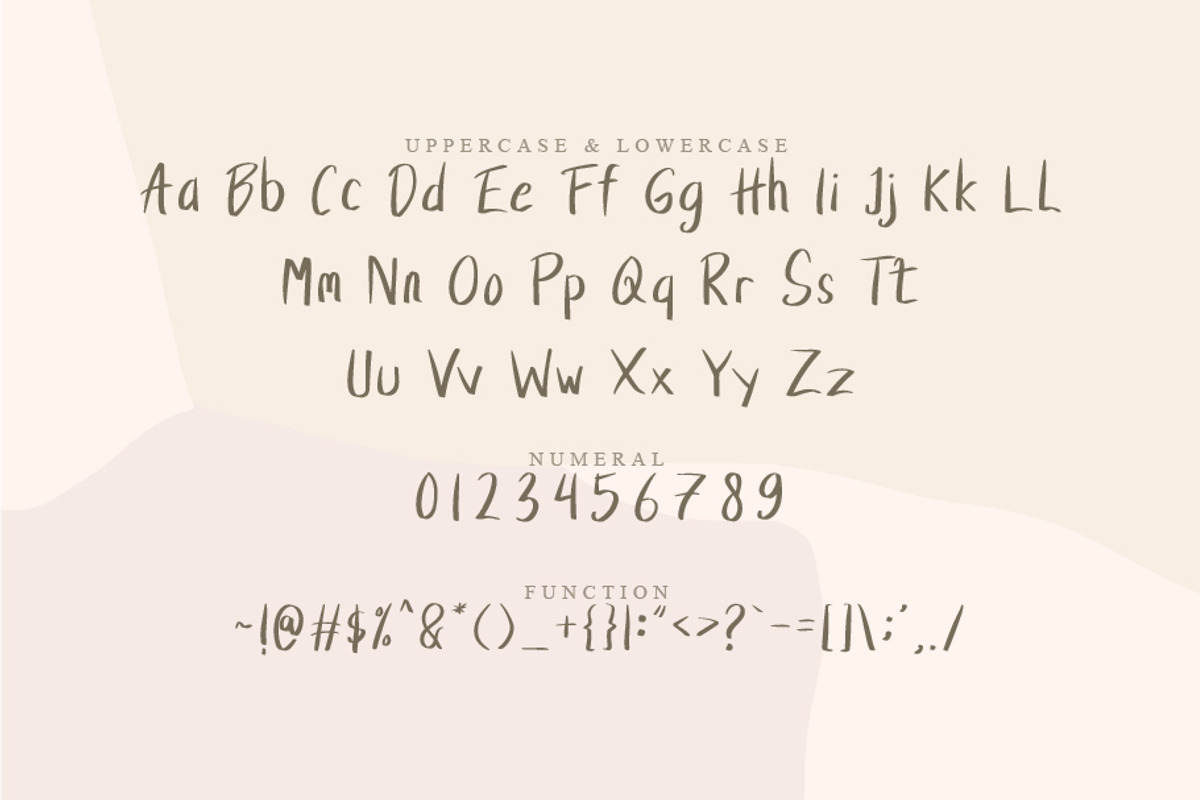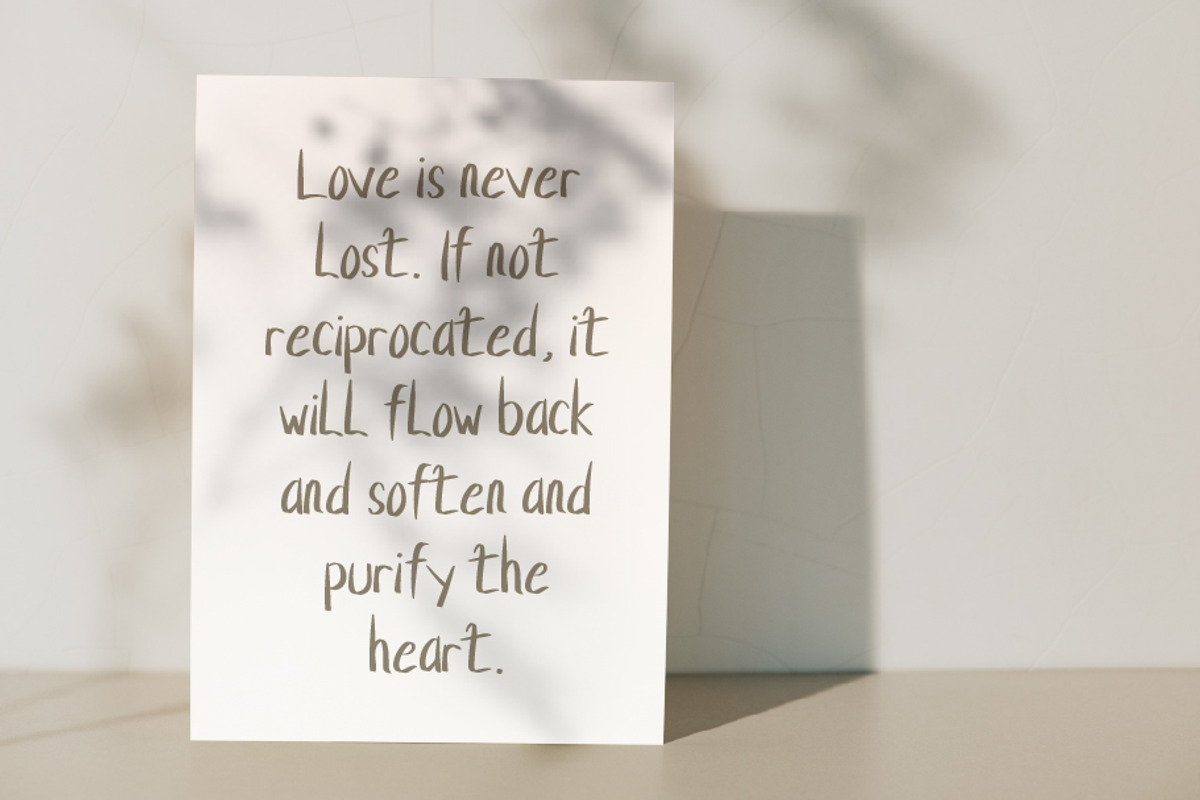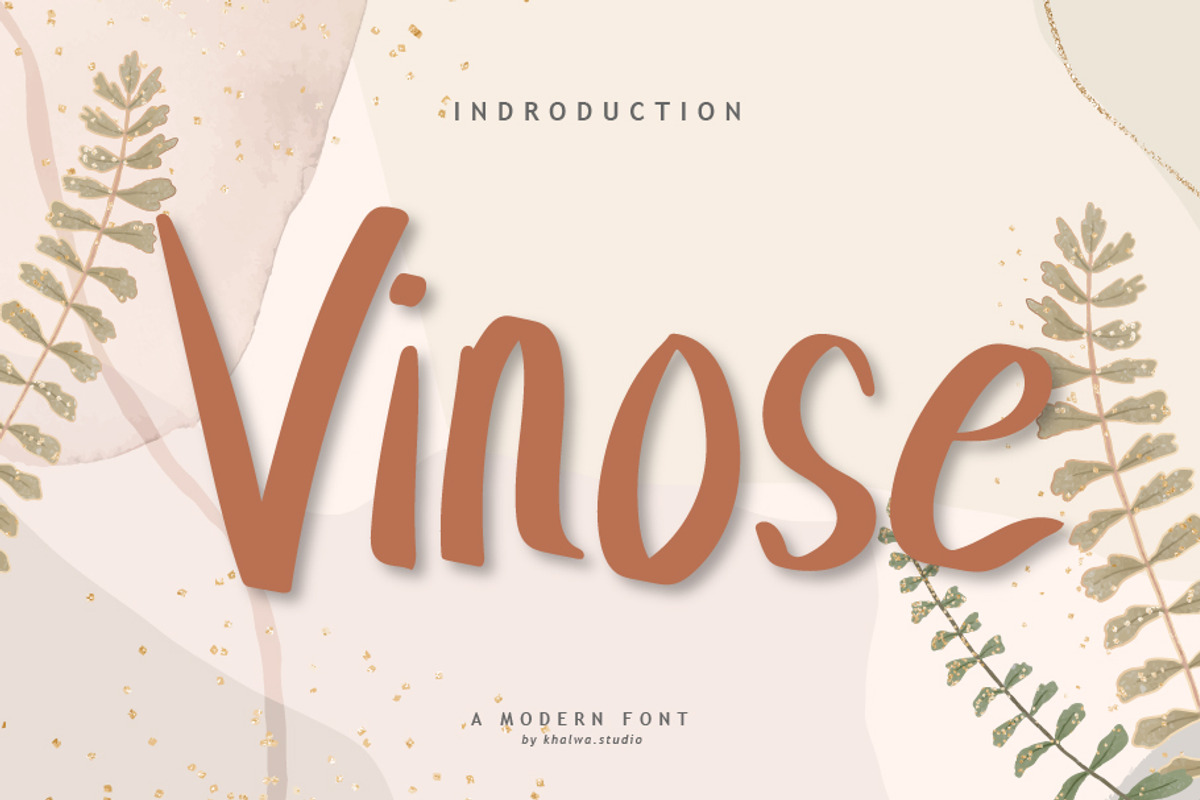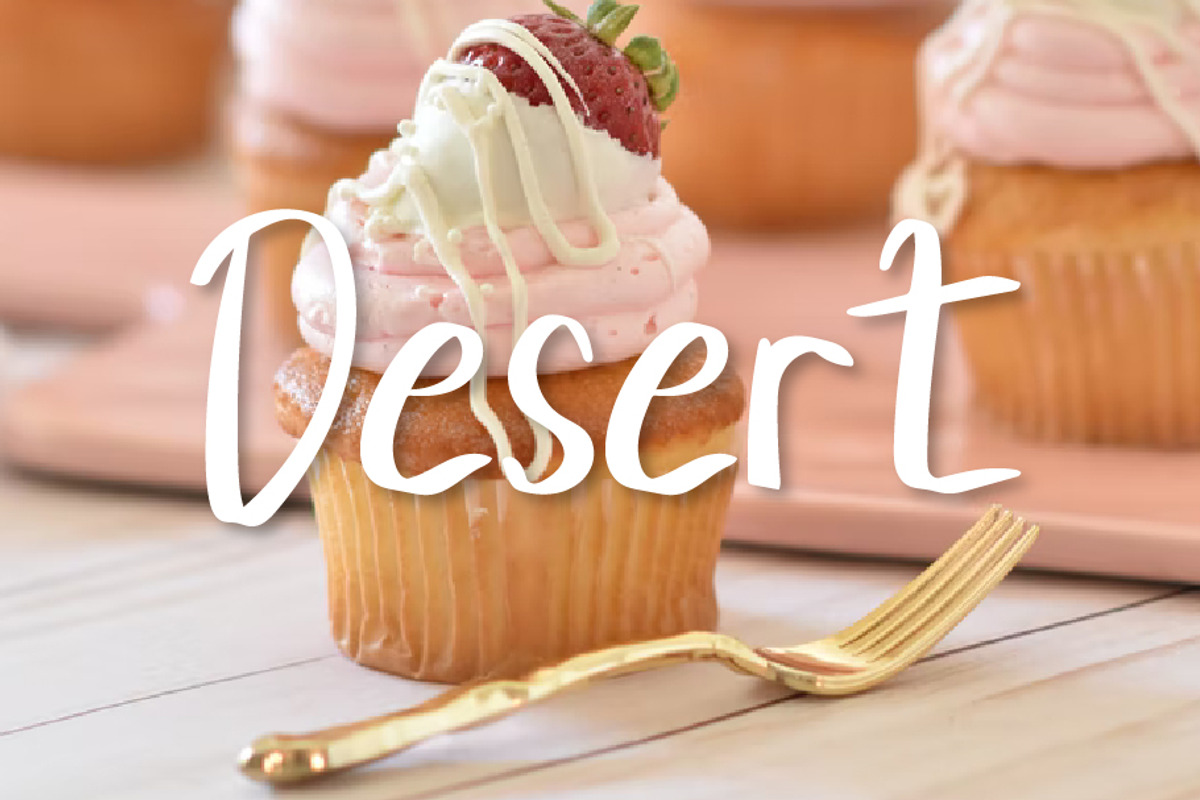
vinose
Vinose Script is a relaxed, paint brushed handwritten font. It is the best choice for creating eye catching logos, branding and quotes. Every letter has a unique and beautiful touch, which will make your design come alive!